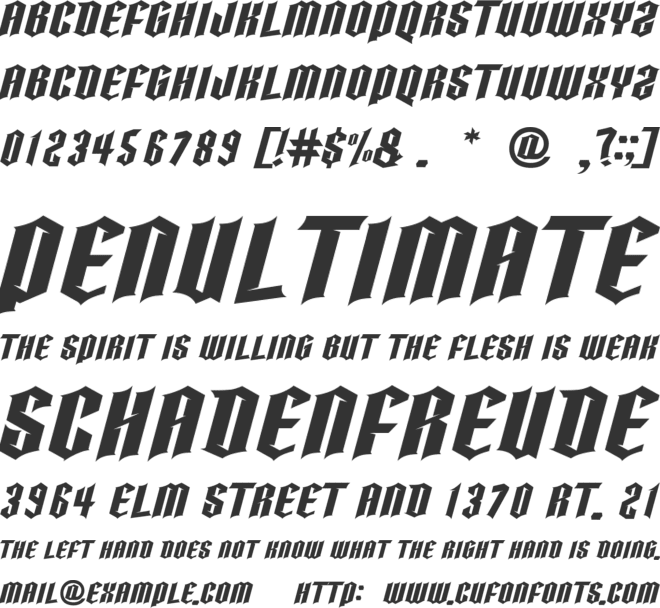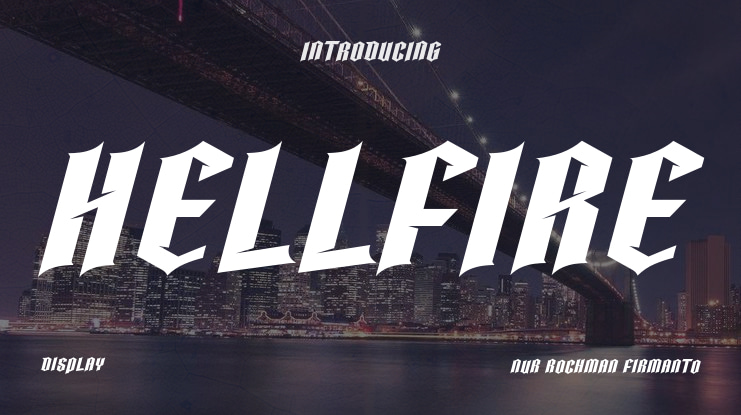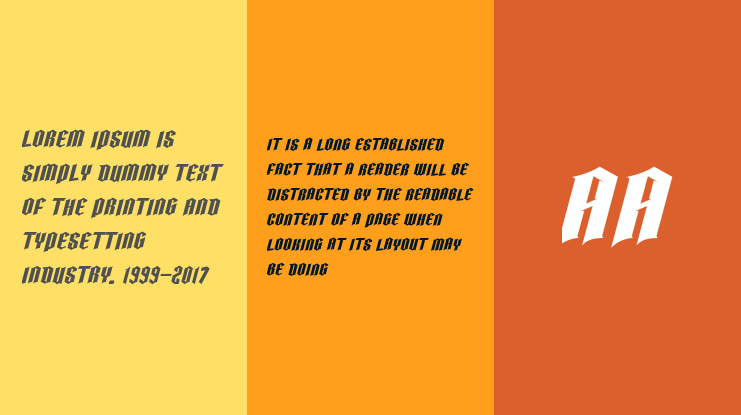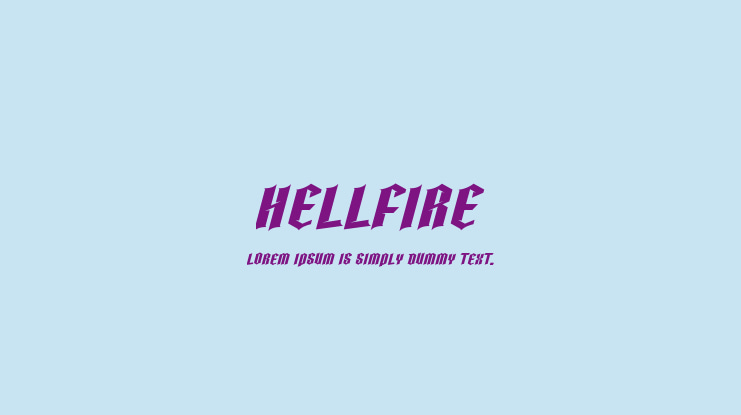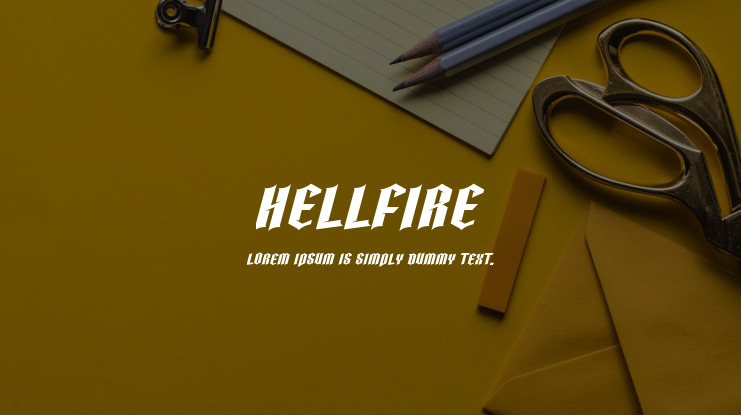
HELLFIRE Font
Nur Rochman Firmanto
Hellfire is a modern black letter font with a bold and unique swift cut.Use it for product packaging, branding, t-shirts, magazines, logos, posters, or any other project that requires bold typography.Add it to your design and make it come alive!commercial use download here :https://www.creativefabrica.com/product/hellfire/ref/2524472/